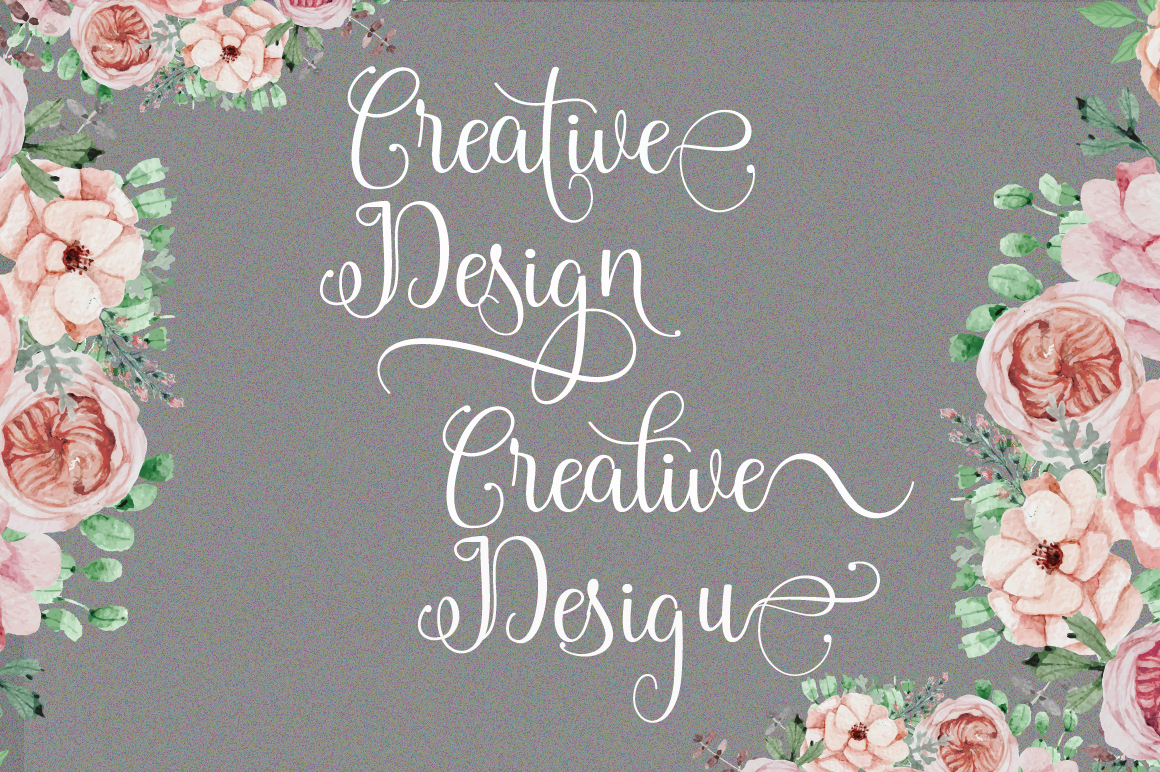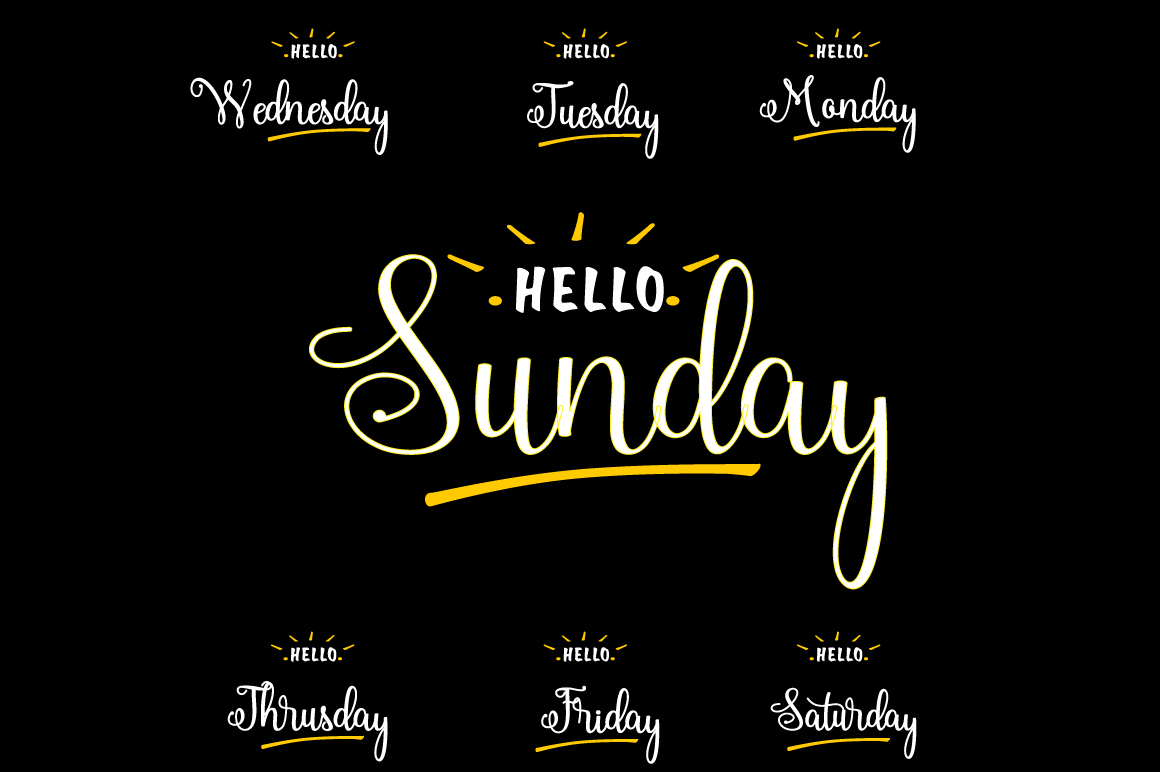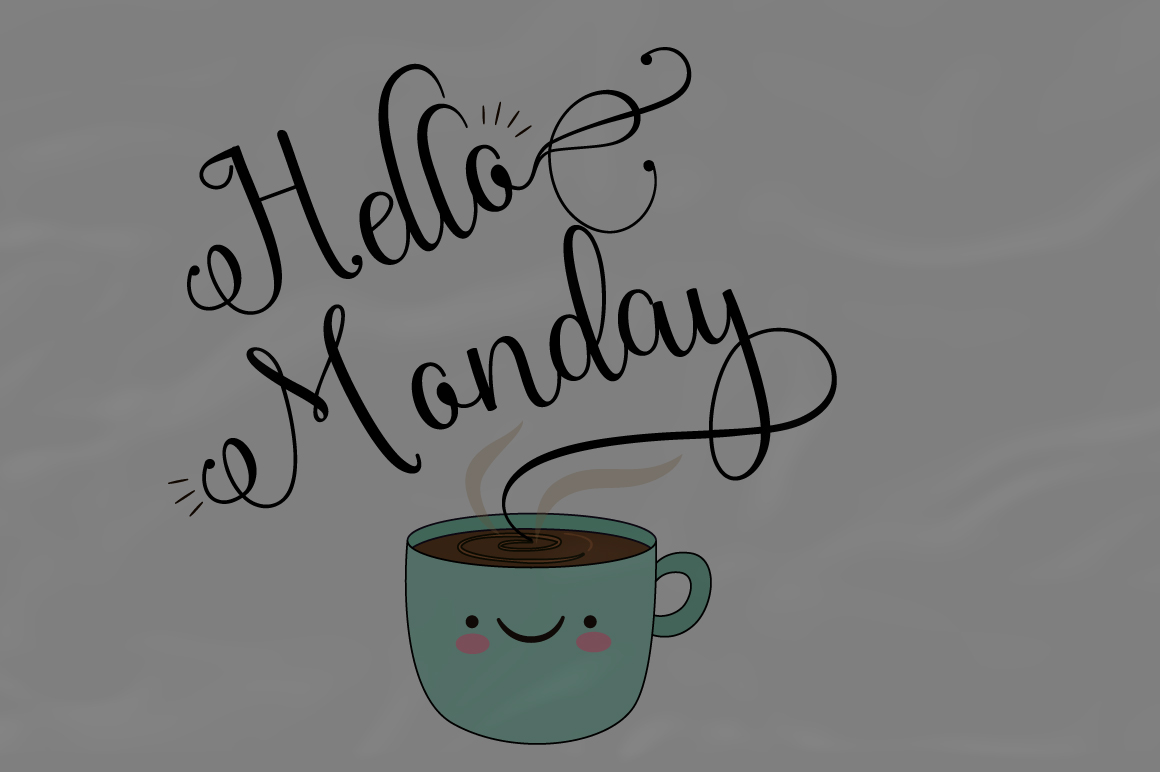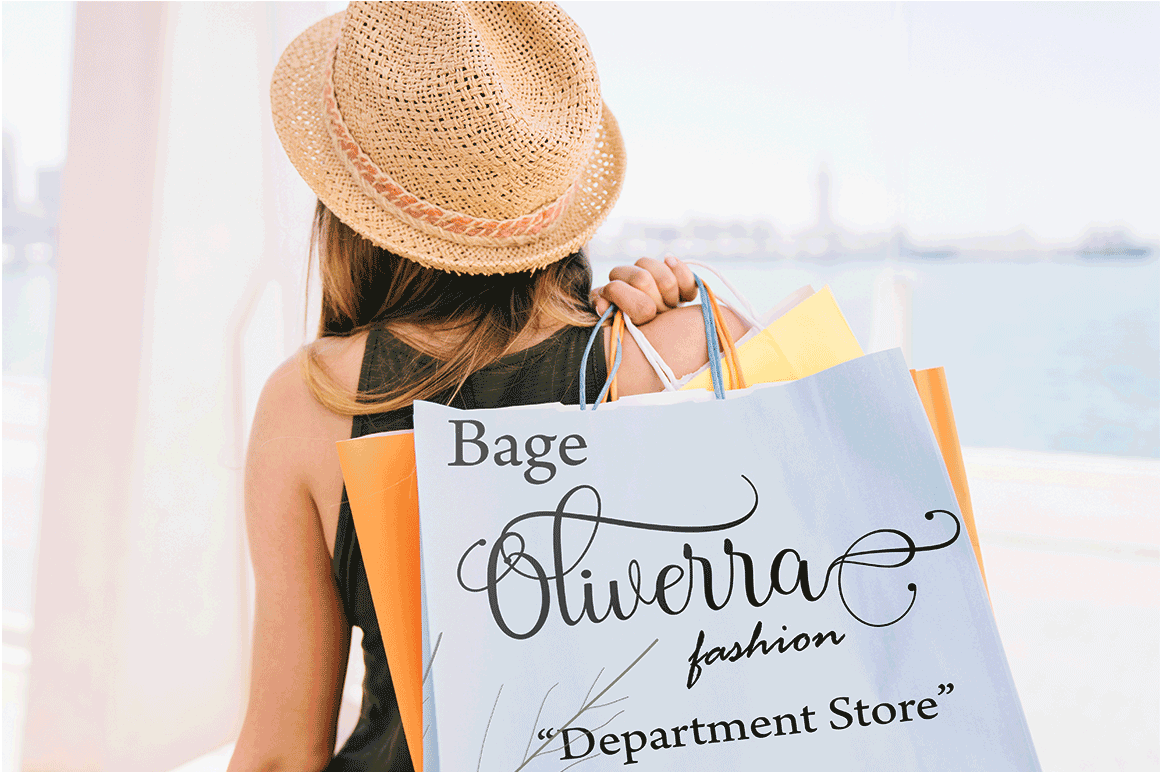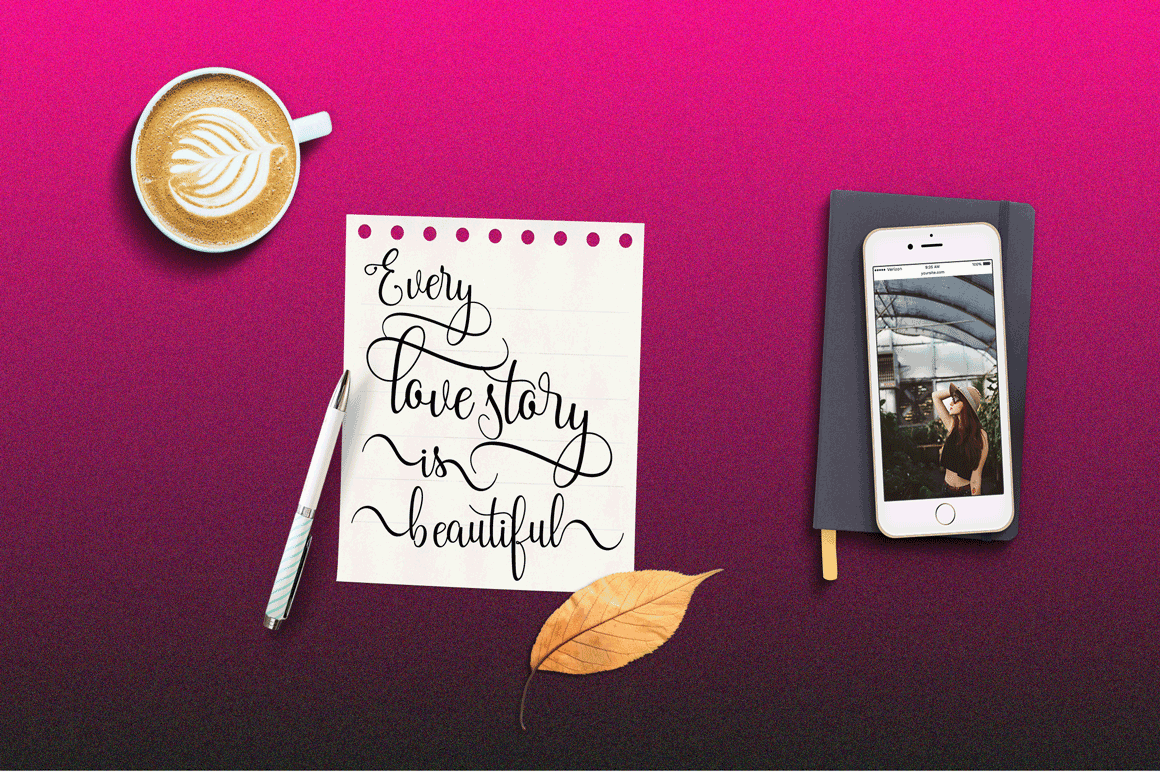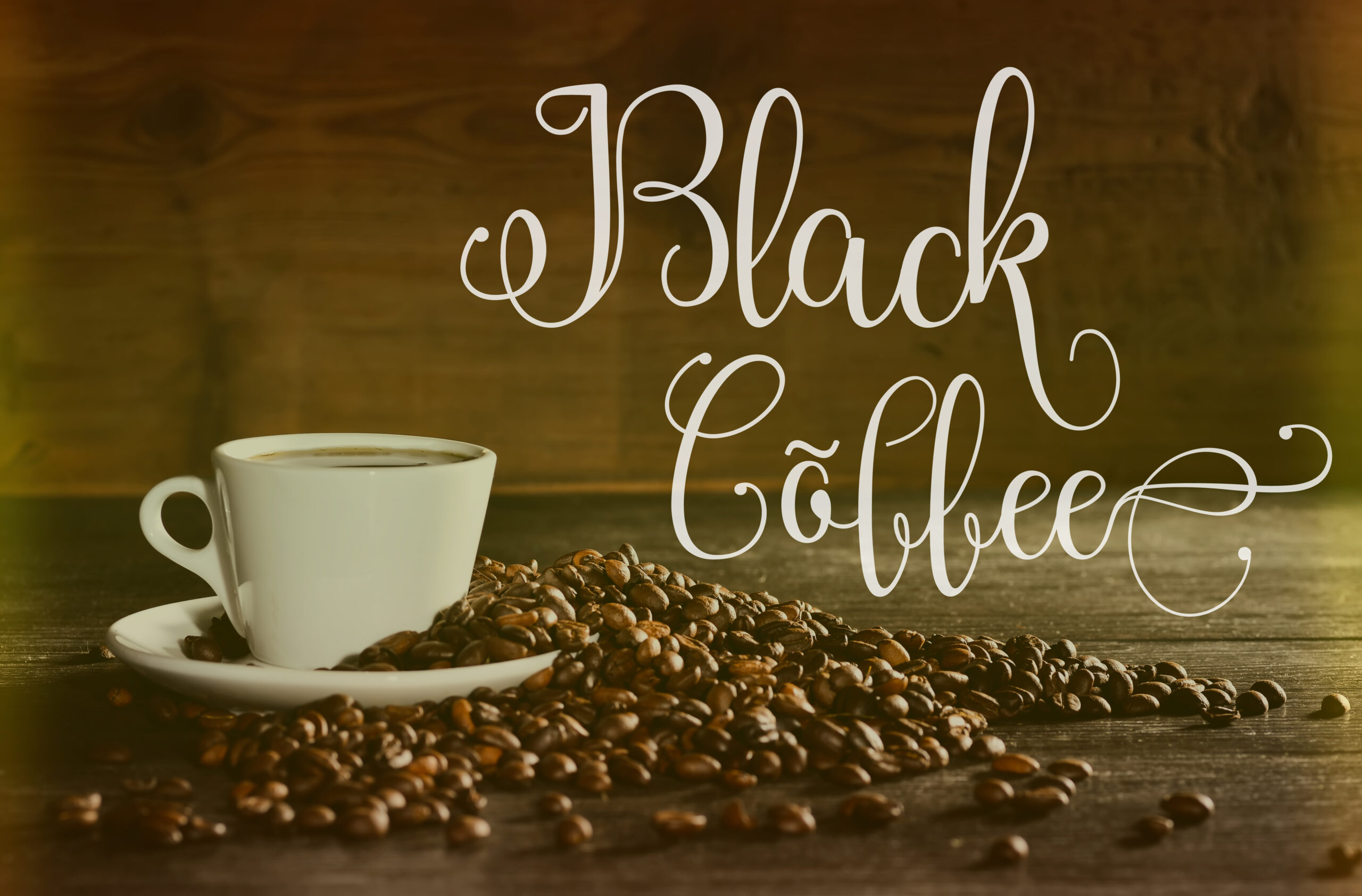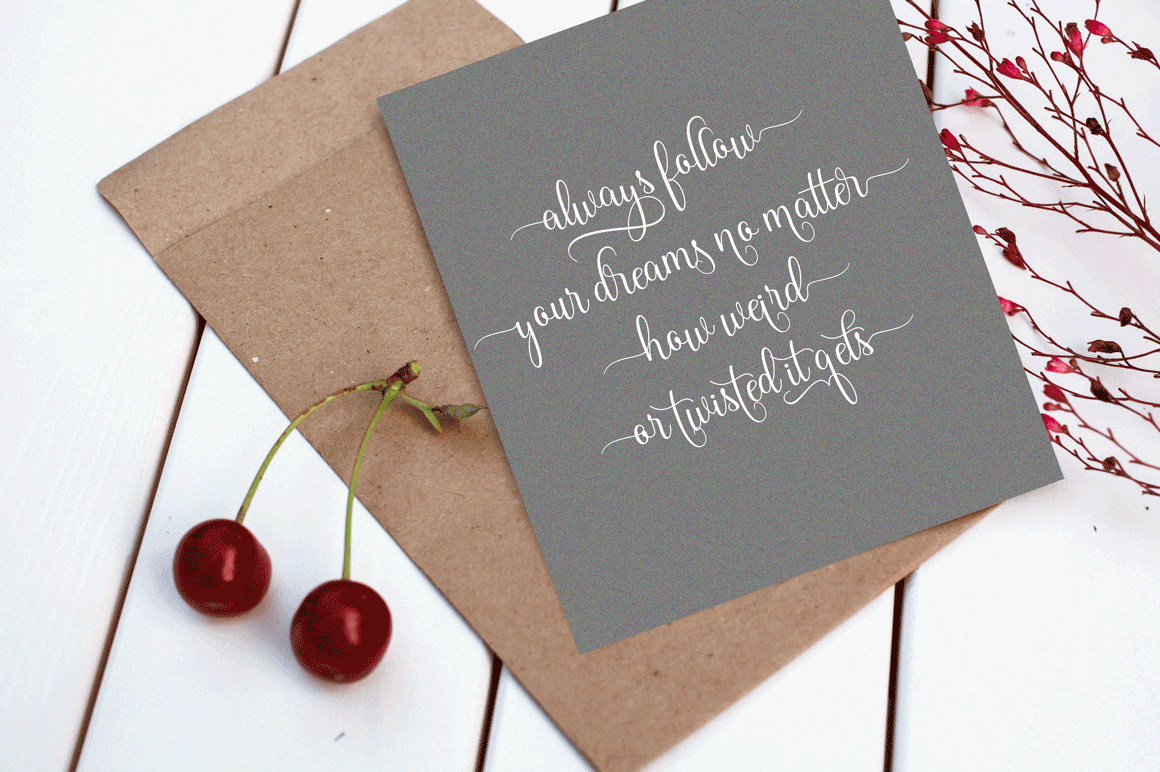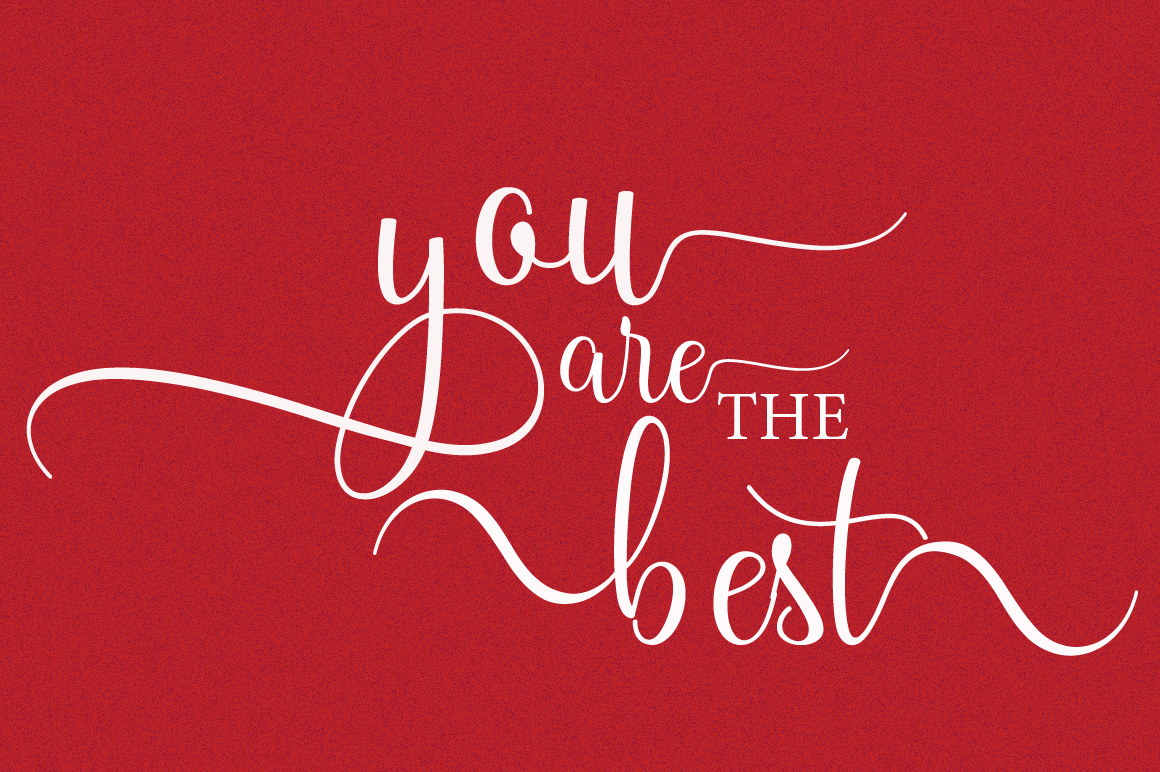
Mr. Satan Font
About Mr. Satan Font
“Wouldst thou like to live deliciously?” Mr. Satan is a sinfully intriguing script font, a calligraphy style that comes with tons of alternates and that dances across your compositions. Mr. Satan can give a luxurious look to your designs, all the while staying bold and brazen.